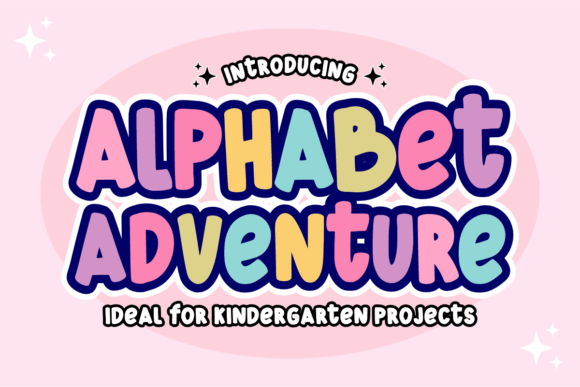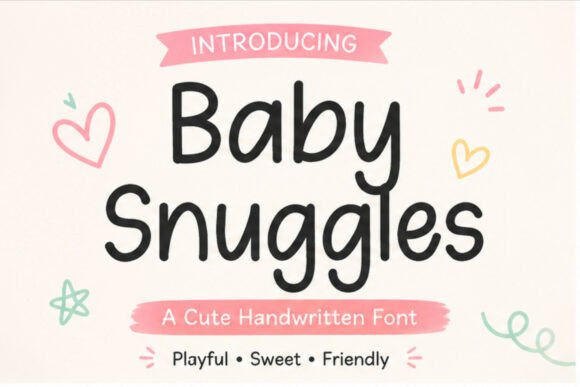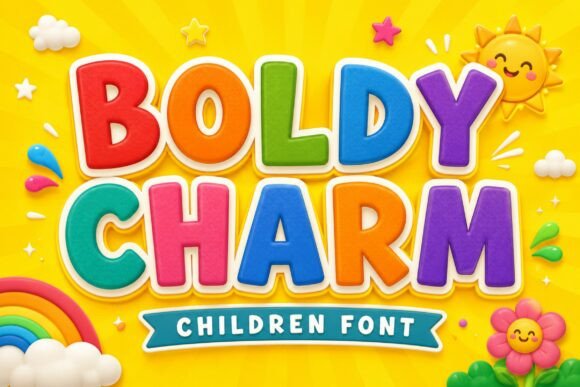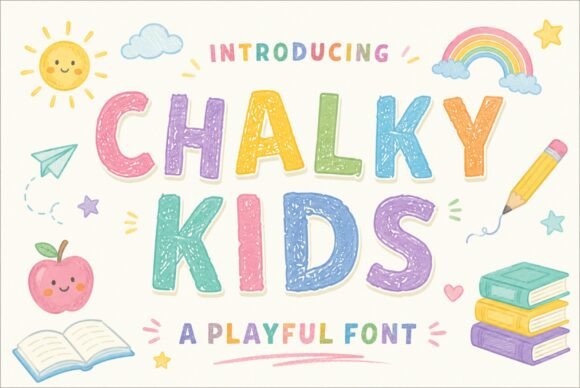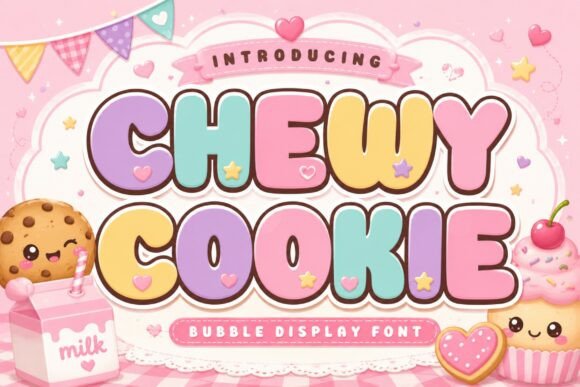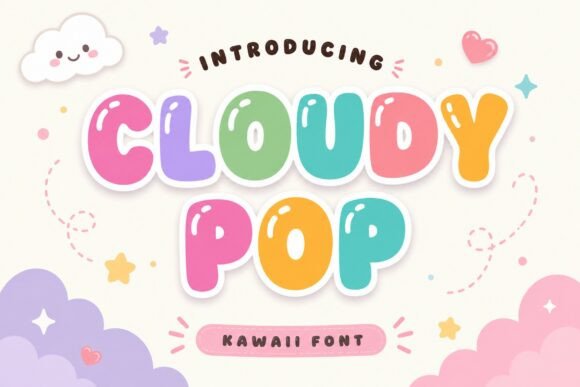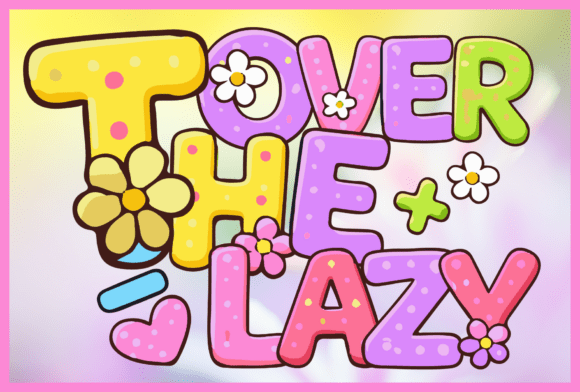
22 Cute Bubble Letters for Parties, Classrooms and Kids
Cute bubble letters are the default for anything aimed at children, and that is exactly why so many go wrong. Designers reach for the roundest, softest font available without checking whether a six-year-old can read it. This guide sorts twenty-two options by the project you are making, with the one thing that matters most in each context.
The rule that applies to all of these. If children are the audience, letterforms must be unambiguous. Watch for a lowercase a that could read as an o, and for fonts where l and capital I are identical. Cute is worth little if the word cannot be decoded.
Cute Bubble Letters for Birthday Parties
Loud enough to read across a room, soft enough not to feel corporate. Cute happy birthday bubble letters live here.
Cute Homework bubble font
Cute Homework
✨ Cute Homework – Kawaii Puffy Stitch Bubble Font Cute Homework is a super adorable, puffy handwritten bubble font with a sweet stitched/dashed outline look – perfect for creating playful, kid-friendly designs that instantly feel cheerful and cozy.
Polka Dot Duo bubble font
Polka Dot Duo
Add a pop of fun to your work with the Polka Dot Font Duo!This bubbly typeface set includes two styles filled with playful polka dots – perfect for birthday parties, baby showers, children’s books, greeting cards, and product packaging.
Chalky Kids bubble font
Chalky Kids
Chalky Kids is a fun and playful display font inspired by colorful classroom chalk drawings and children’s creativity.
Retro Kids bubble font
Retro Kids
Retro Kids is cute retro serif font It has vintage, groovy, and fun vibes. This font is special font for back to school theme.
Preppycrush bubble font
Preppycrush
💖 Preppy Crush – Cute, Clean, and Totally ConfidentSay hello to Preppy Crush, a charming all-caps font with playful lowercase-style letterforms that bring the perfect balance of sweetness and style.
Classroom and Teaching Materials
Legibility matters more here than anywhere. Young readers need open, unambiguous letterforms.
Cloudy Pop bubble font
Cloudy Pop
Cloudy Pop is a fun, adorable, and playful bubble font inspired by fluffy clouds, kawaii aesthetics, and colorful pop designs.
School Stories bubble font
School Stories
School Stories is a fun and playful display font created to brighten every children’s project.
Kids Monogram bubble font
Kids Monogram
🎈 Kids Monogram: Decorative Monogram Kids Monogram is a delightful, decorative font designed specifically for creating fun, eye-catching monograms and initial-based graphics for children’s products. Free download.
Chewy Cookie bubble font
Chewy Cookie
Chewy Cookie is a cute and sweet bubble display font featuring chunky rounded letterforms with a soft, playful personality.
Glossy Bubble bubble font
Glossy Bubble
Add a pop of fun to your projects with Glossy Bubble, an adorable and playful display font!
Nursery and Baby Announcements
The softest end of the range, where roundness does the emotional work. Cute pink bubble letters are the usual default.
Sunday Bright bubble font
Sunday Bright
Sunday Bright is a fun and cute groovy font, inspired by retro bold typography. This font is perfect for a design that requires a playful and fun accent.
Alphabet Adventure bubble font
Alphabet Adventure
Alphabet Adventure | Playful Back to School Kids Font ✨ Bring dynamic learning and playful exploration to your canvas with “Alphabet Adventure”!
Love Magic bubble font
Love Magic
Love Magic is a charming bubble display font featuring soft rounded shapes and adorable heart details that bring a warm, playful personality to every project.
Groovy Crayon bubble font
Groovy Crayon
Introducing “Groovy Crayon,” a colorful and playful hand-drawn color font created for Back-to-School projects and kid-friendly designs.
Baby Snuggles bubble font
Baby Snuggles
Introducing Baby Snuggles, a charming handwritten font designed to add warmth and sweetness to your creative projects.
Cute Bubble Letters for Stickers and Planners
Small formats, so counters and spacing decide whether these survive.
Schoolie bubble font
Schoolie
Brighten up your classroom printables and creative crafts with Schoolie, an adorable and playful display font!
Milky Splash bubble font
Milky Splash
Add a splash of fun, creamy sweetness, and playful energy to your visual designs with Milky Splash!
Is there a good cute aesthetic bubble letters option for social posts?
Several here work well. Look for rounded terminals plus a lowercase set that holds up, since most social layouts mix cases rather than shouting in capitals.
How do I draw cute bubble letters by hand?
Write a thin skeleton first, then trace an even rounded outline around it keeping the gap constant. Our bubble fonts alphabet guide covers the full five-step method.